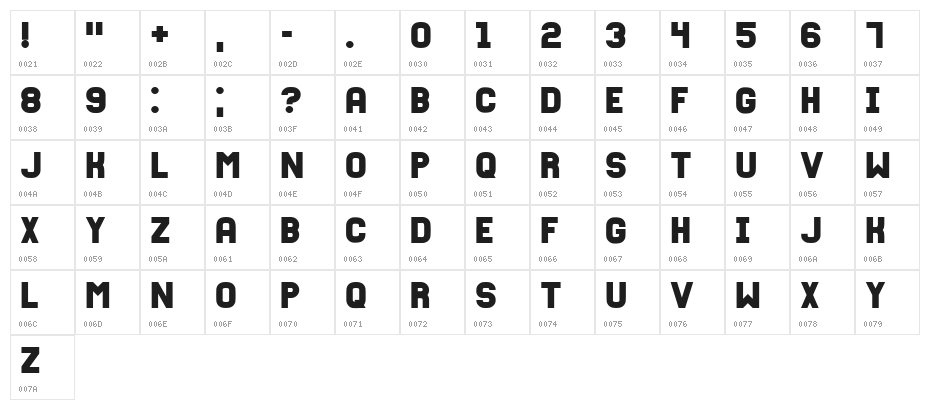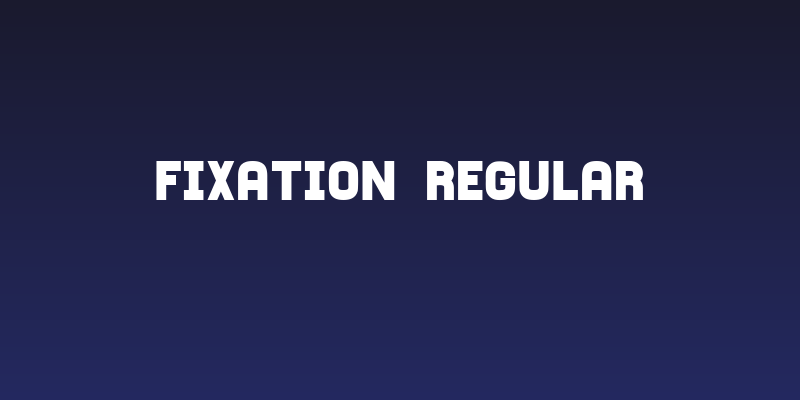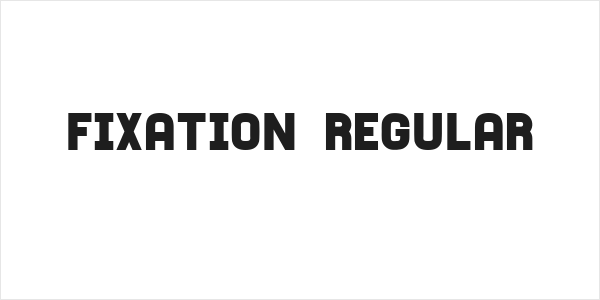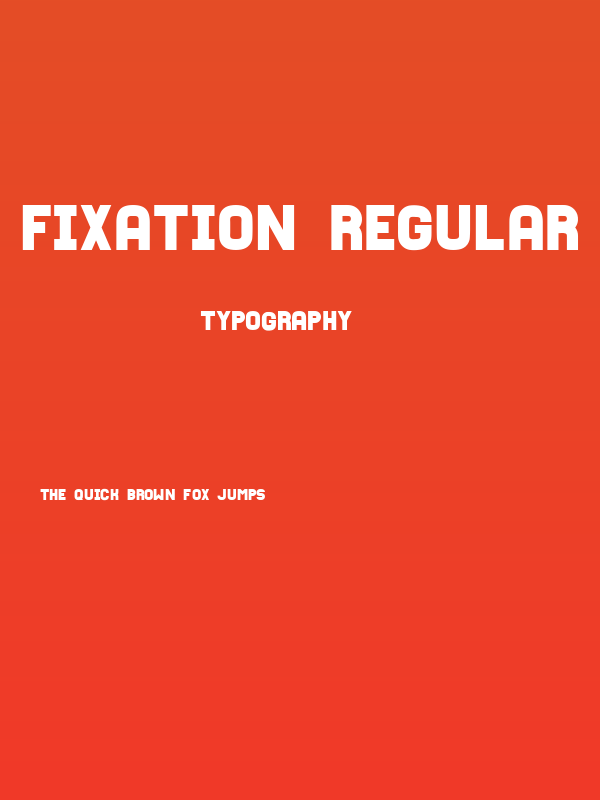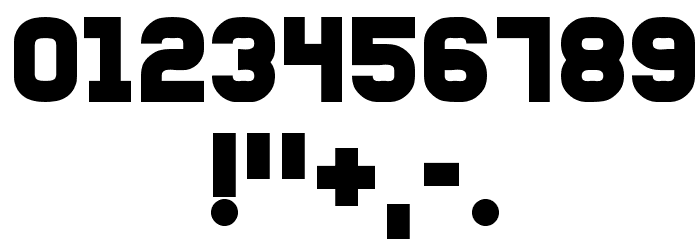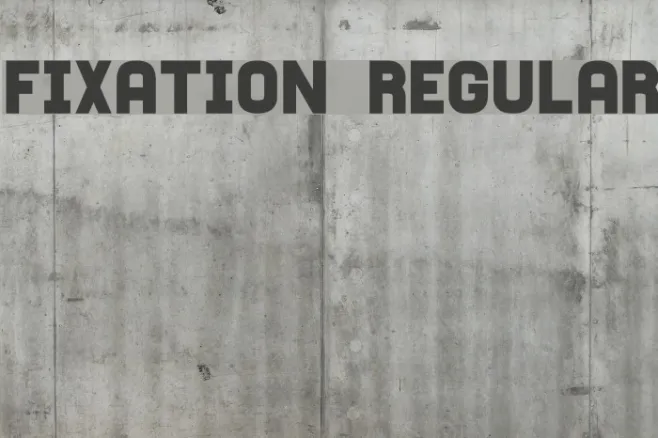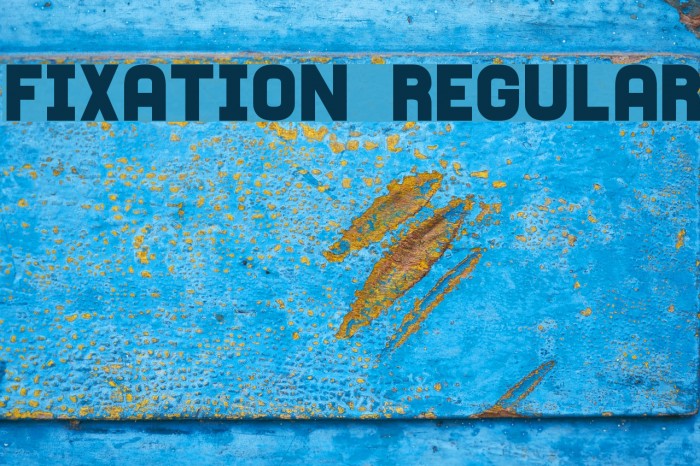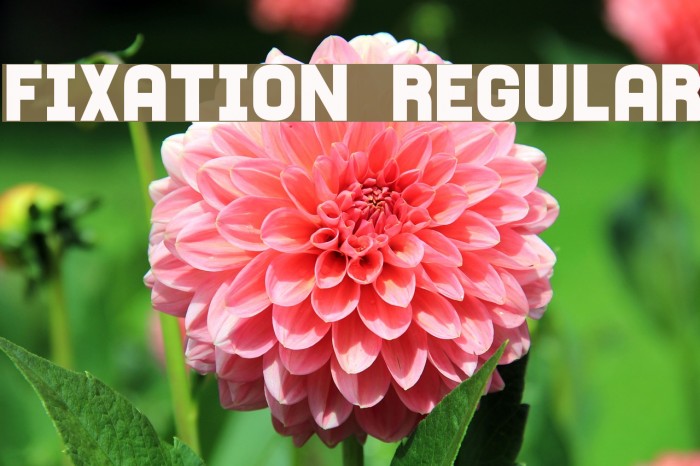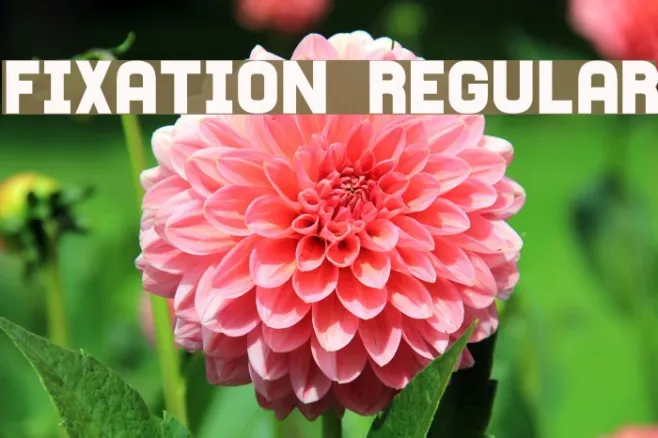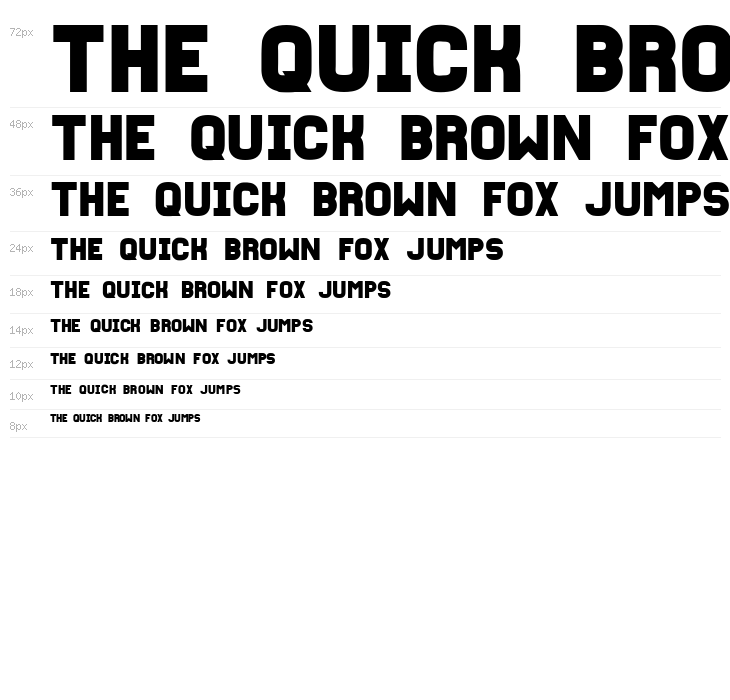
Fixation Regular Font
Fixation Regular Description
This font features a bold and robust design with strong geometric shapes and a commanding presence. The characters are uniformly thick, giving it a powerful and impactful look. The uppercase letters are particularly striking, with a blocky and solid appearance that makes them stand out. The numbers and special characters maintain the same boldness, ensuring consistency across all elements. This font's design is ideal for making a strong visual statement, with its clear and legible forms that are easy to read from a distance.
| Proposed Projects | Ideal for posters, headlines, branding, and signage where a strong visual impact is needed. |